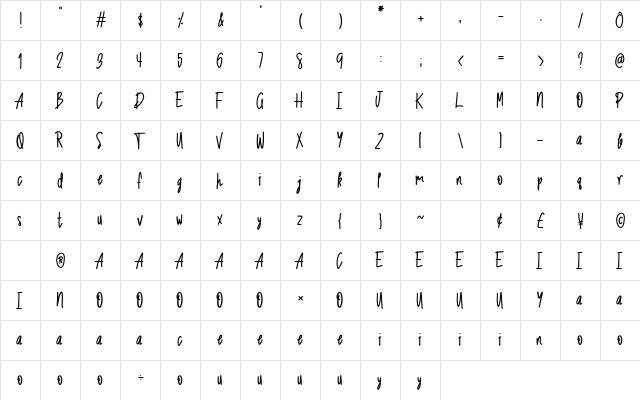
Scarlett Regular Font Preview
Scarlett Regular
Scarlett Regular Font Details
| Designer | Aquariid |
Design Context for Scarlett Typeface
Scarlett is a composed and adaptable typeface that performs quietly and consistently across a wide range of design contexts.